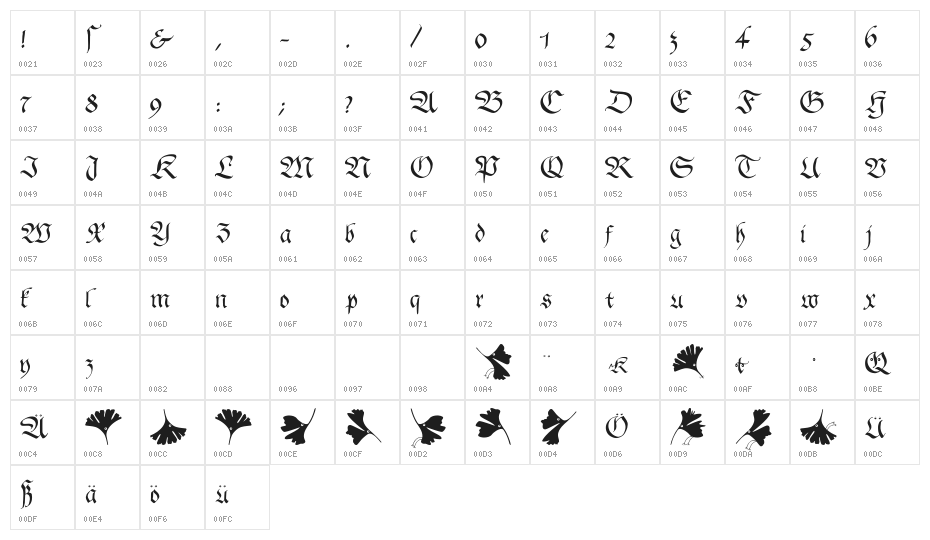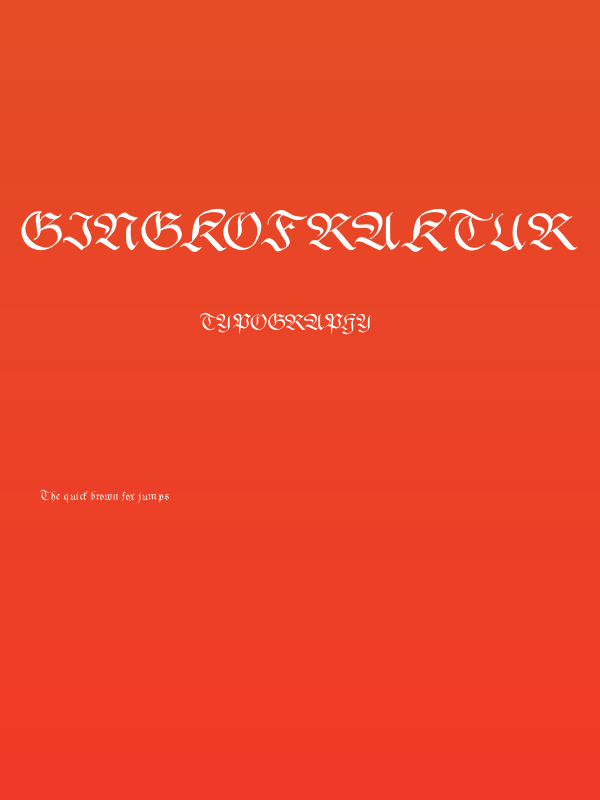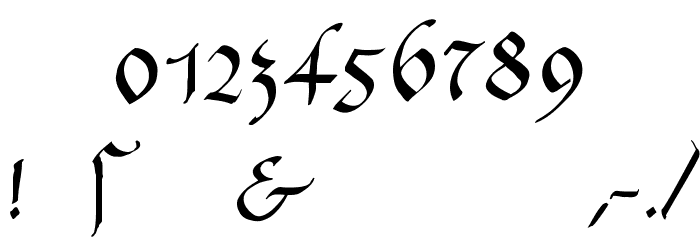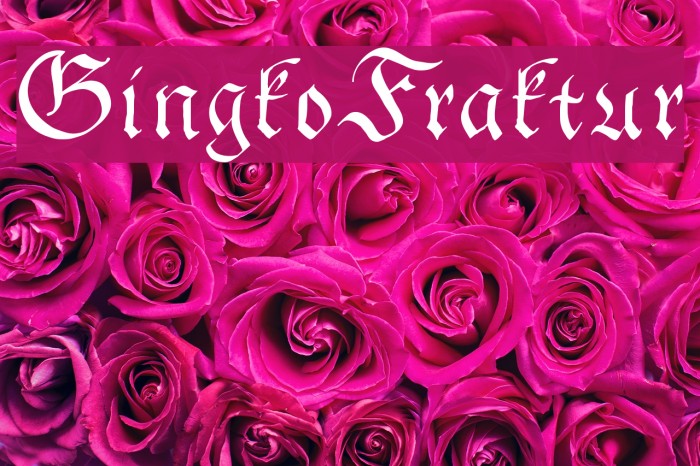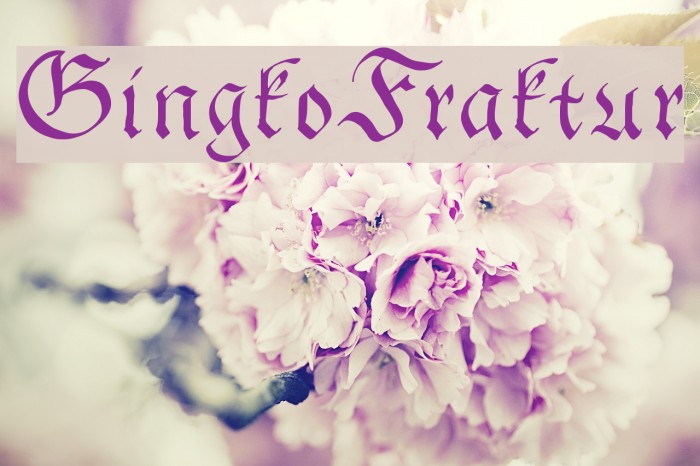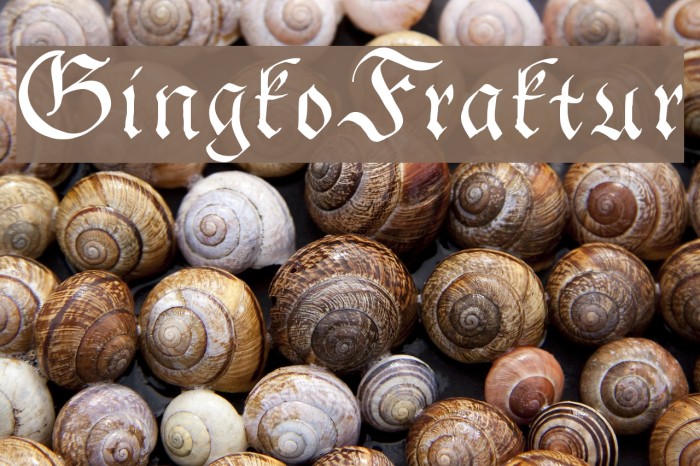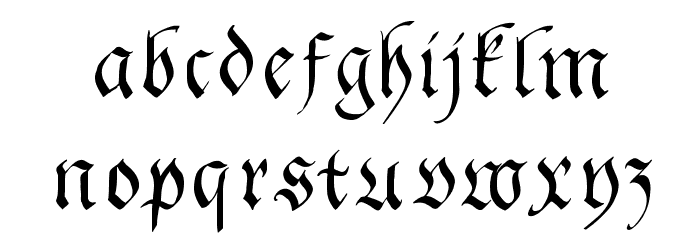
GingkoFraktur Font
GingkoFraktur Description
This font exhibits a traditional blackletter style, characterized by its ornate and intricate letterforms. The uppercase letters are bold and angular, with sharp serifs and decorative flourishes that give a sense of historical elegance. The lowercase letters maintain a consistent style, with elongated strokes and a slightly condensed appearance. Numbers and special characters are designed to match the overall aesthetic, featuring similar angular and decorative elements. The font's high contrast between thick and thin strokes enhances its dramatic and formal appearance, making it suitable for projects that require a touch of classic sophistication.
| Proposed Projects | Ideal for historical documents, certificates, wedding invitations, and branding that requires a classic and formal touch. |